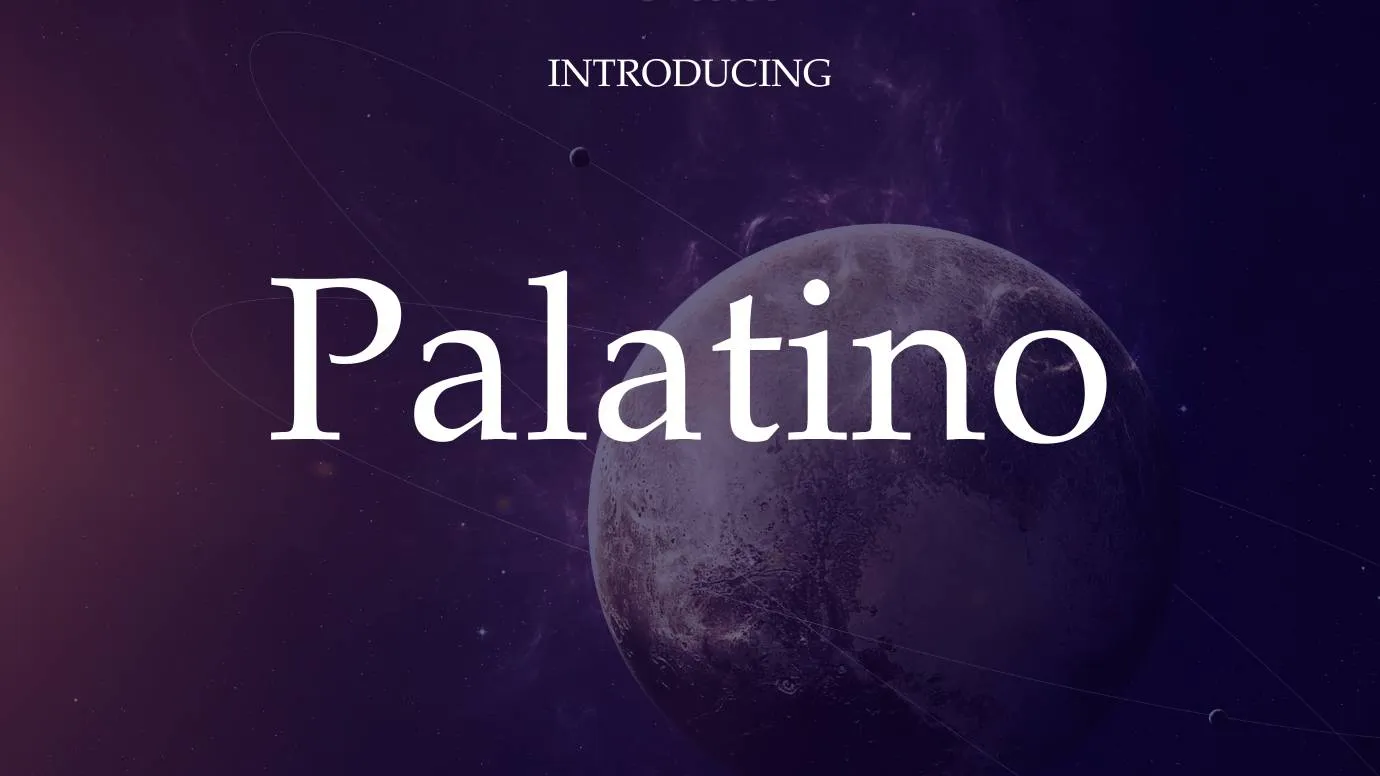
Palatino Font Family is classified as an old-style serif typeface, was created by the eminent German designer Hermann Zapf in 1949, who is renowned for his valuable contributions to font design.
Platino has a large group family that includes various fonts including Michaelangelo Titling, Sistina, Platino, etc that work well with Garamond Font.
| Name | Palatino Font |
| Designer | Hermann Zapf |
| Foundry | Mergenthaler Linotype Company |
| Type | Old-style |
| Date Released | 1948 |